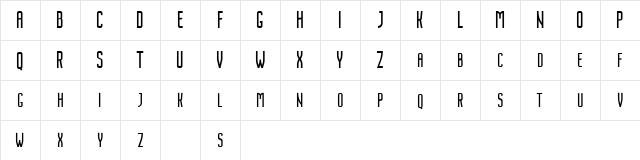
Nordin Free Regular
| Foundry | Craft Supply Co |
Design Context for Nordin Free Typeface
Nordin Free takes a measured approach to typography — its balanced proportions and neutral character make it a reliable workhorse for both digital and print work.